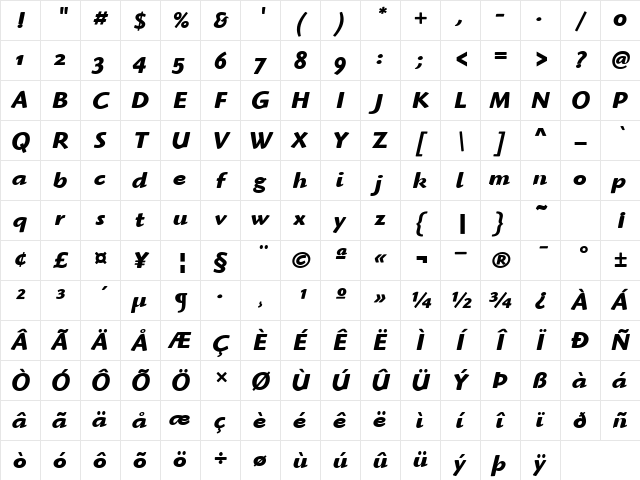
HighlanderITCOS BoldItalic
HighlanderITCOS Family
HighlanderITCOS BoldItalic
Complete HighlanderITCOS BoldItalic glyph index. Displaying only characters natively supported by HighlanderITCOS BoldItalic font.
Design Context for HighlanderITCOS
HighlanderITCOS is a composed and adaptable typeface that performs quietly and consistently across a wide range of design contexts. The slanted form adds forward momentum and visual energy. Its bold stroke weight gives it real presence on the page.